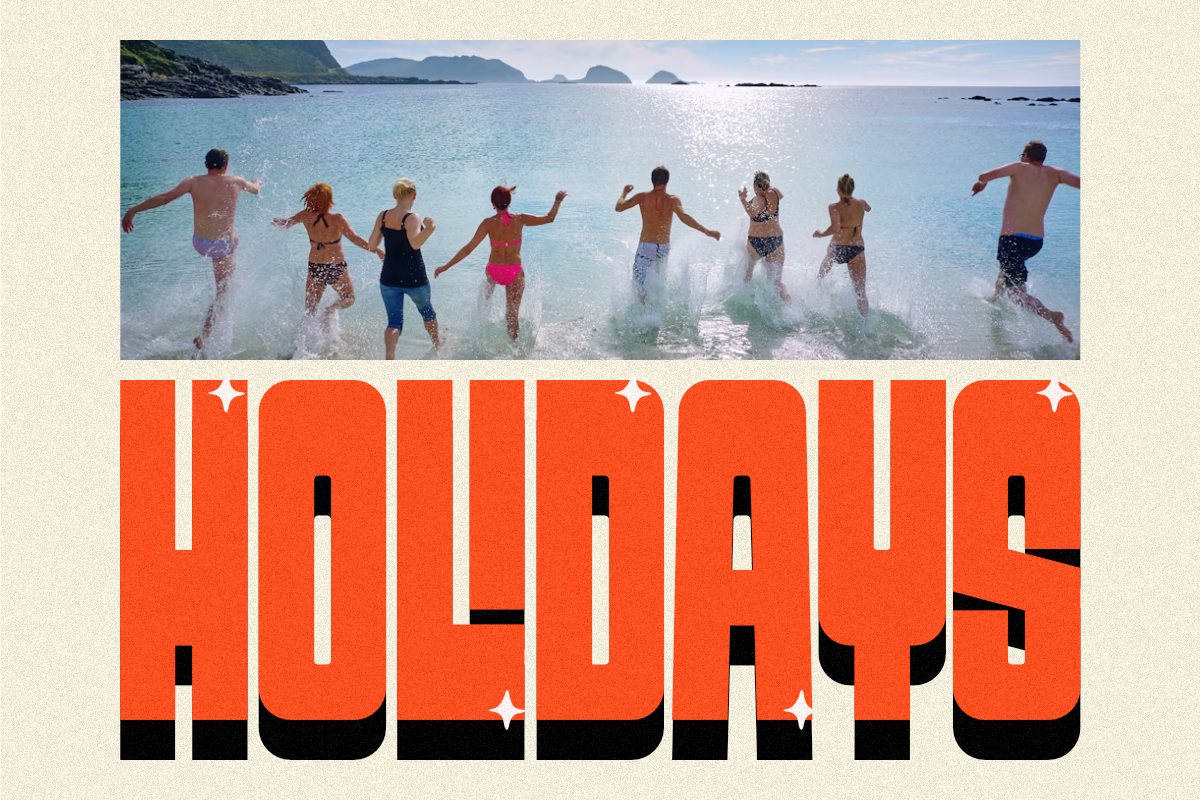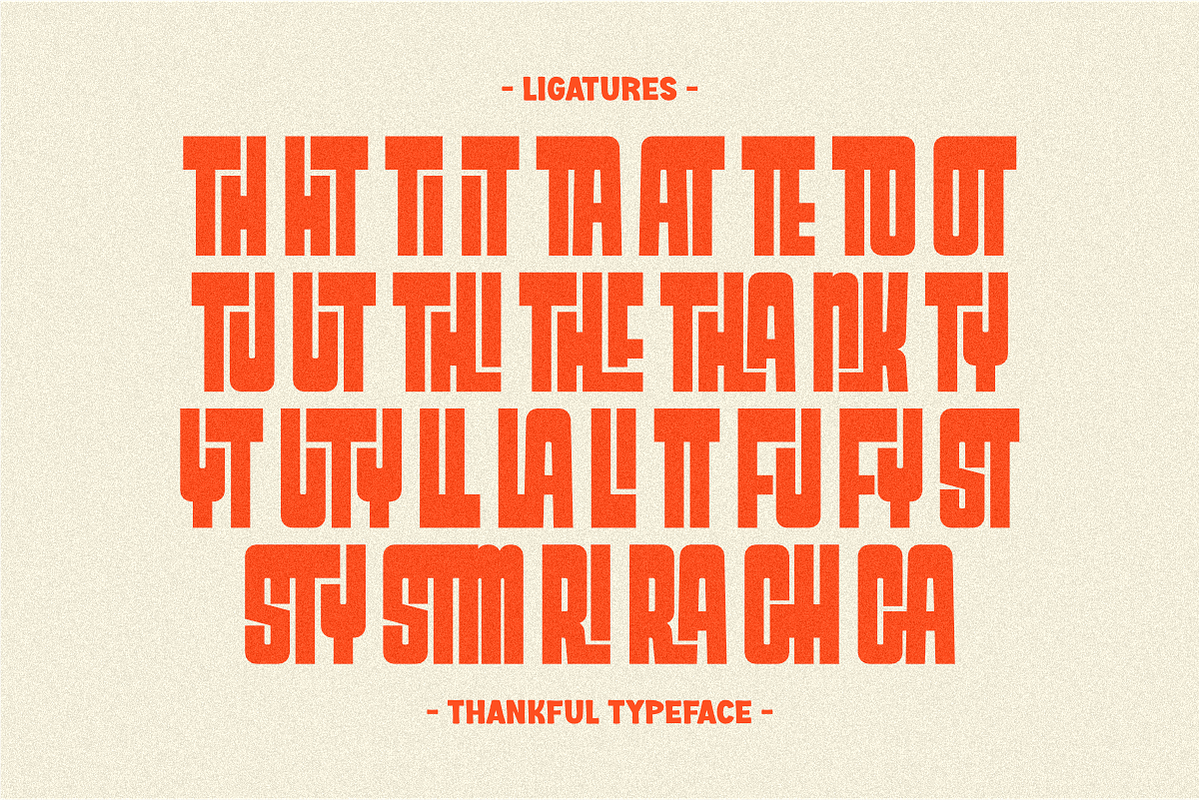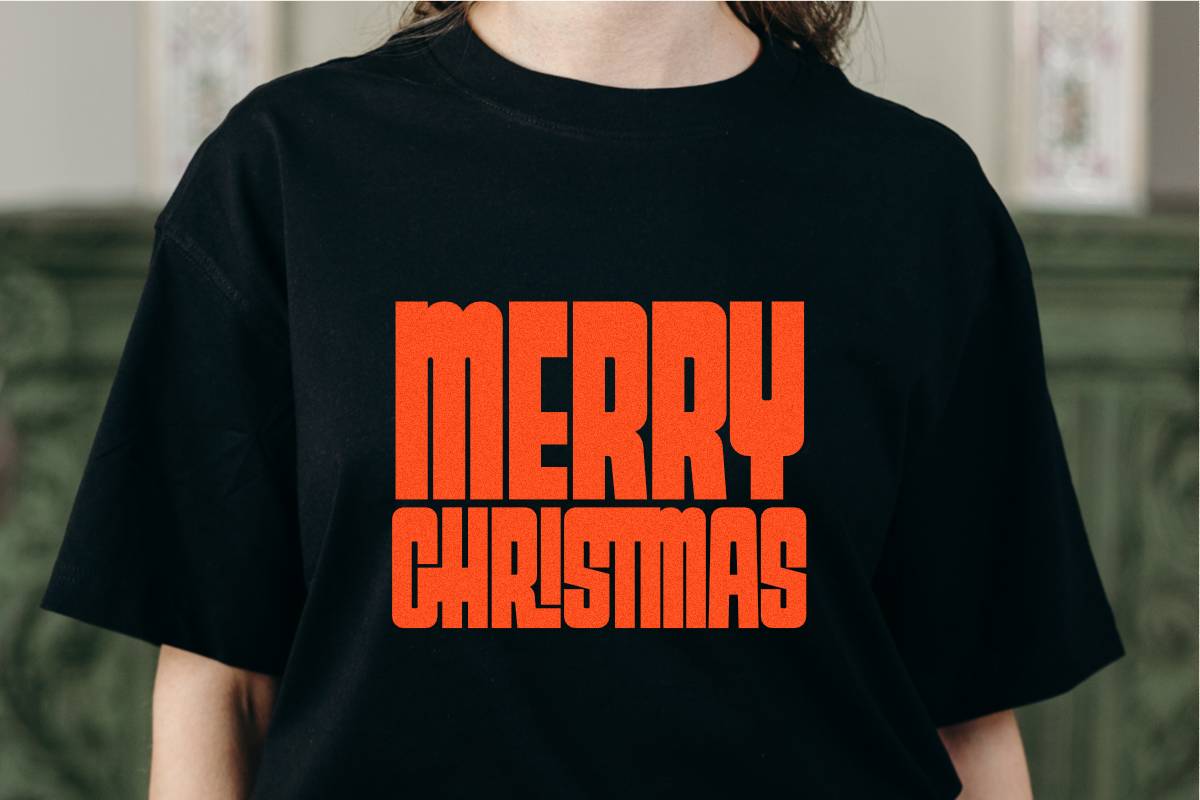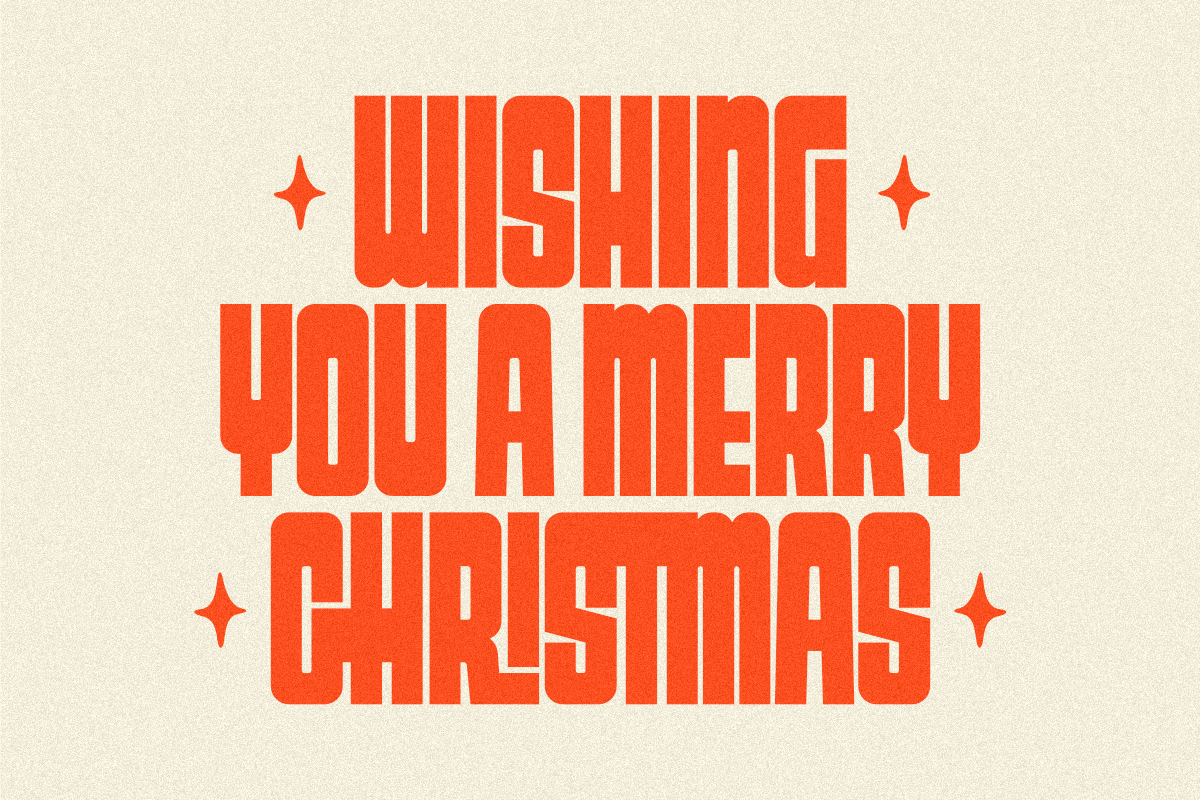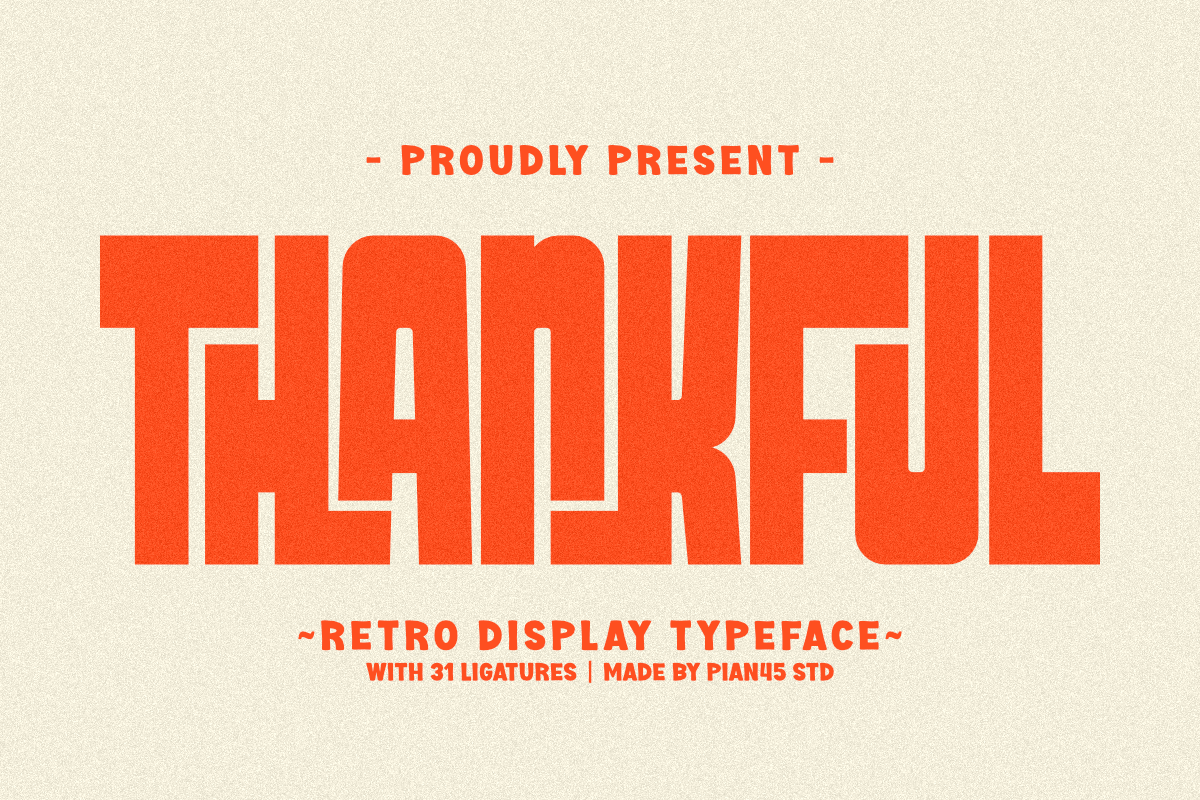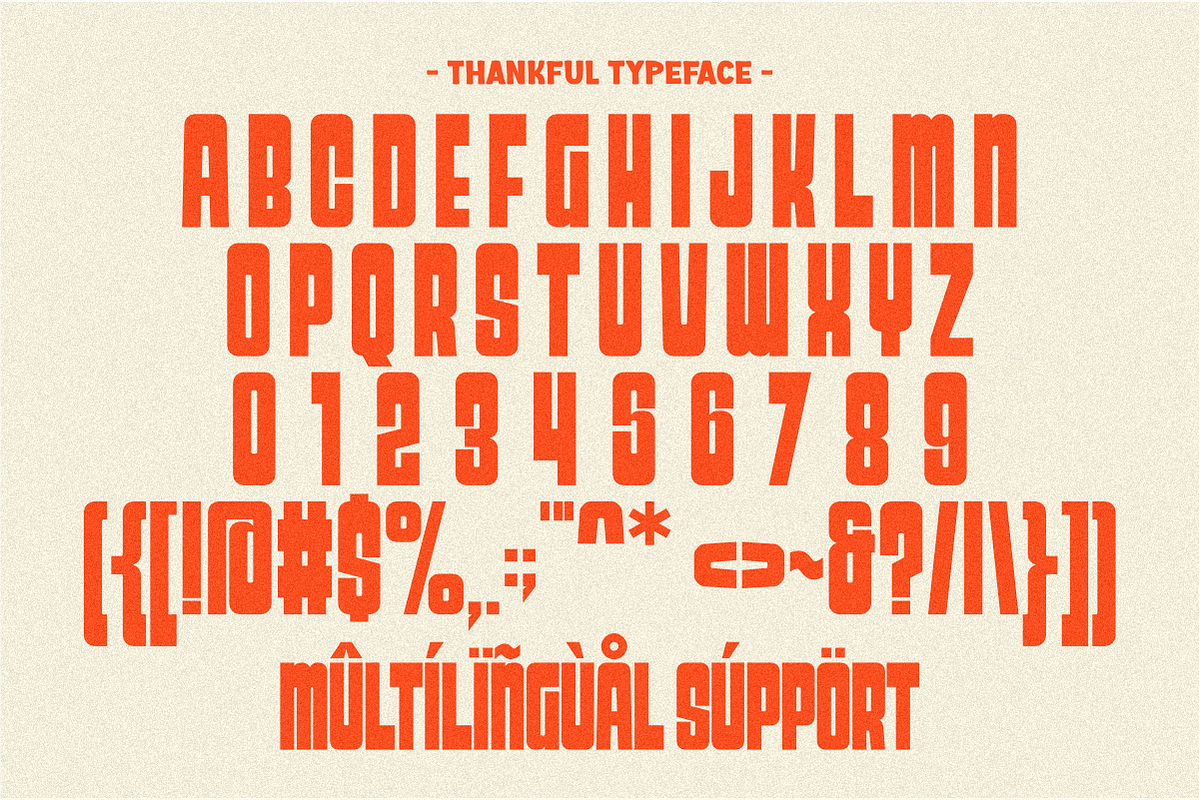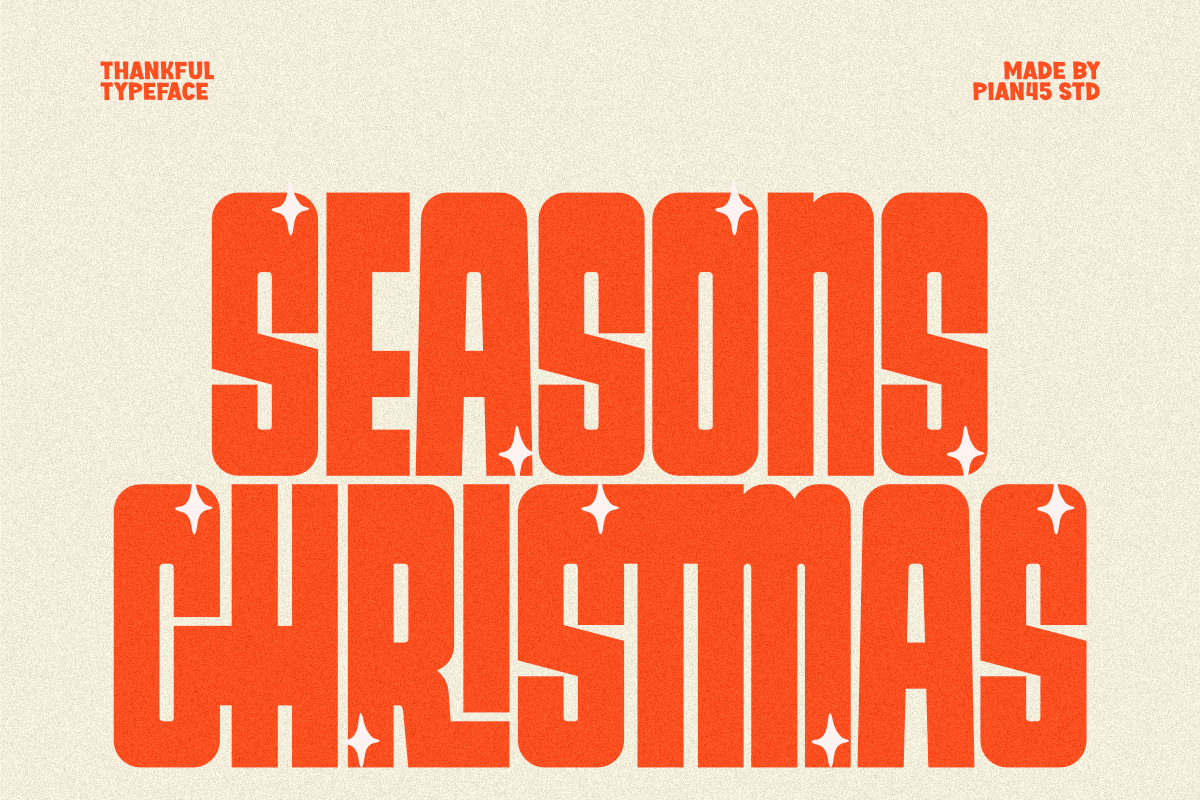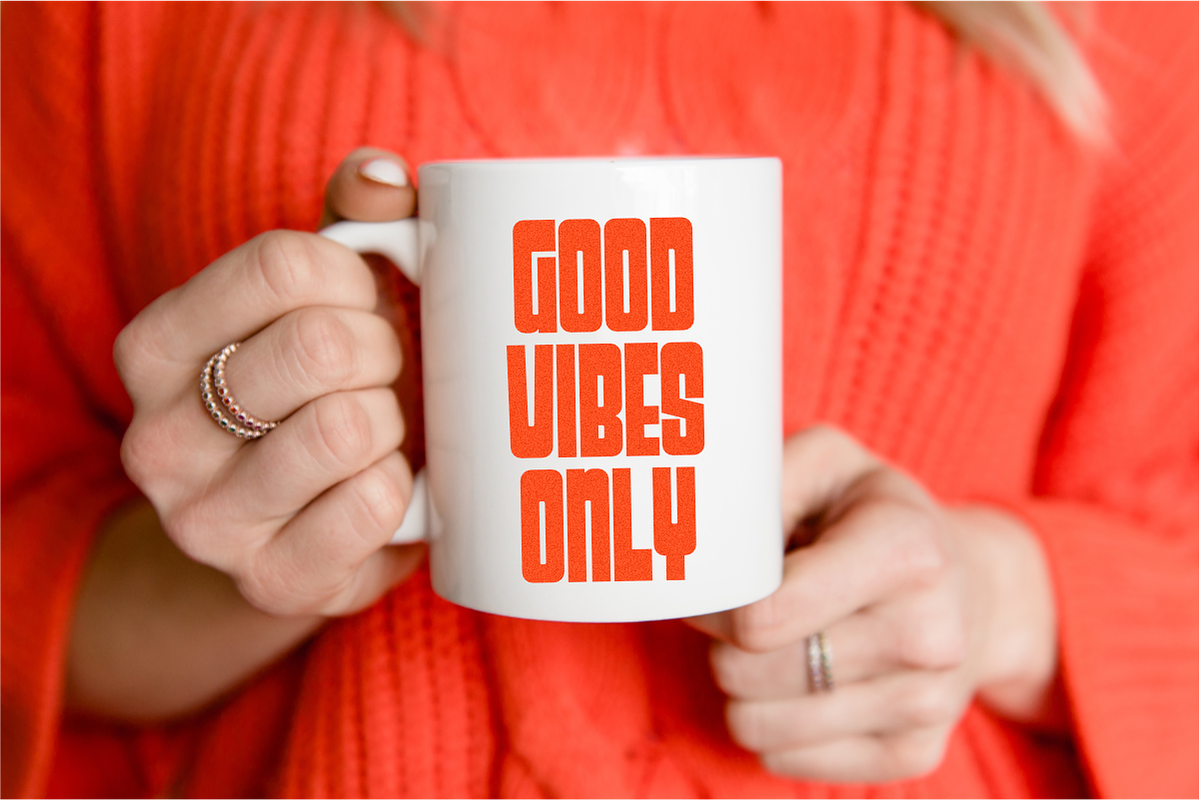
Thankful - Retro Display Typeface
Thankful is a bold, chunky Retro Display Typeface that radiates warmth and holiday nostalgia. Its massive, blocky structure with soft curves and playful ligatures is perfect for Christmas branding, Thanksgiving festivals, vintage apparel, and high-impact event posters. This unique font delivers a fun, old-school, and memorable aesthetic, making it the ideal display choice for all your seasonal, merchandise, and 70s-inspired design projects.